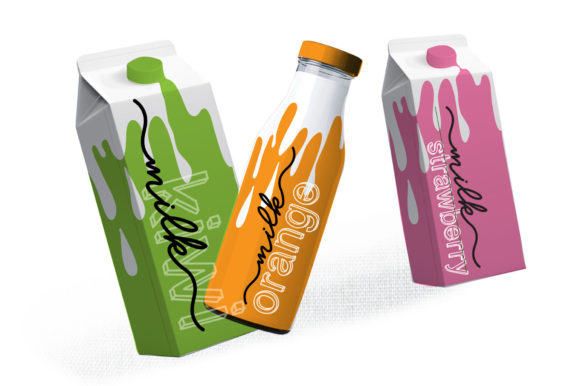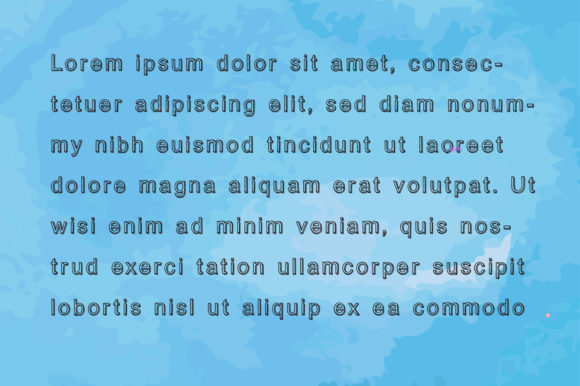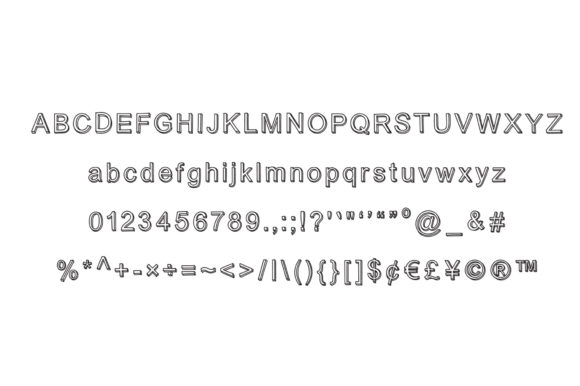
Have you ever stared at a blank canvas, unsure of where to start, but suddenly a burst of inspiration hits you? It’s that moment when everything falls into place, and your creative vision begins to take shape. For designers, finding the right font can be the key to unlocking that magic. And that’s exactly what we’re excited to share with you – the Kids 3D Outline Font.
This modern and simple lettered display font is a game-changer for any project. Whether you’re creating a logo, poster, or digital artwork, Kids 3D Outline Font has the potential to elevate your design to the next level. With its cool and edgy feel, it’s no wonder why designers are flocking to this font to add a touch of sophistication to their creations.
Key Features of “Kids 3D Outline Font”
- Font Family: A unique 3D outline font designed specifically for kids, offering a playful and engaging aesthetic.
- Unique Characteristics: The font features a distinctive 3D outline effect, giving it a dynamic and eye-catching appearance.
Designer Review: Kids 3D Outline Font
Overall, I was excited to dive into the Kids 3D Outline Font. It has a lot of potential, and I can see why it might be a great choice for certain projects.
- ✨ Fun and playful style: The font has a 3D outline effect that adds a fun and playful touch to any text. It’s perfect for kid-friendly designs, such as children’s books, educational materials, and even party invitations.
- ✨ Wide range of characters: The font includes a wide range of characters, including uppercase and lowercase letters, numbers, and punctuation marks.
- ✨ Easy to read: Despite its playful style, the font is still easy to read, even for younger children.
- ⚠️ Limited language support: The font only includes characters for the Latin alphabet, which might be a limitation for projects that require support for other languages.
- ⚠️ Not suitable for serious designs: While the font is perfect for playful designs, it might not be the best choice for more serious projects, such as business reports or technical documents.
Overall, I think the Kids 3D Outline Font is a great choice for projects that require a fun and playful touch. However, it might not be the best choice for more serious designs or projects that require support for multiple languages.
The “Kids 3D Outline Font” is ideal for:
1. Children’s educational materials.
2. Cartoon-style graphics.
3. Fun and playful designs.
Alternatives to Kids 3D Outline Font
Comic Sans MS is a sans-serif font designed to mimic handwriting, making it perfect for informal and playful designs. It’s great for creating a friendly and approachable atmosphere, but it’s not ideal for formal or professional projects. Compared to Kids 3D Outline Font, Comic Sans MS is more readable and versatile, but lacks the 3D effect.
Great Vibes is a modern sans-serif font with a fun and energetic feel. It’s suitable for creative projects, such as advertisements, posters, and social media graphics. Compared to Kids 3D Outline Font, Great Vibes has a more polished look and is easier to read, but it may not be as attention-grabbing.